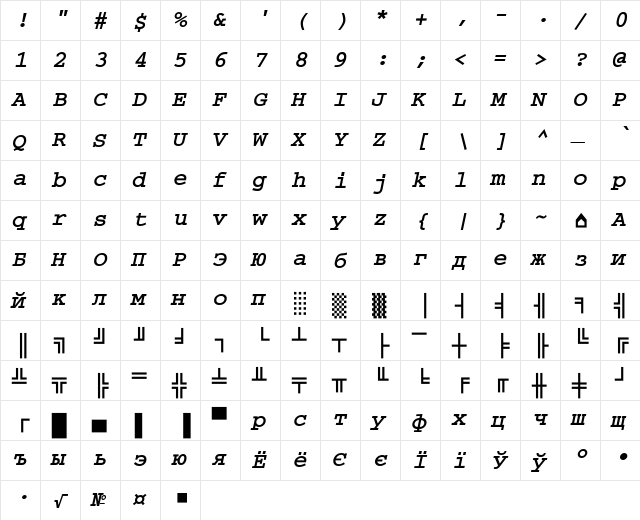
CourierDOSCTT BoldItalic Font Preview
Design Context for CourierDOSCTT Typeface
CourierDOSCTT uses fixed-width spacing throughout, giving it the structured, systematic character associated with coding environments and technical documentation. The slanted form adds forward momentum and visual energy. The heavy weight commands attention and anchors typographic hierarchies.
Pro Tip: Use CourierDOSCTT with slightly increased line-height for extended reading — fixed-width spacing can feel dense in longer passages without extra breathing room.